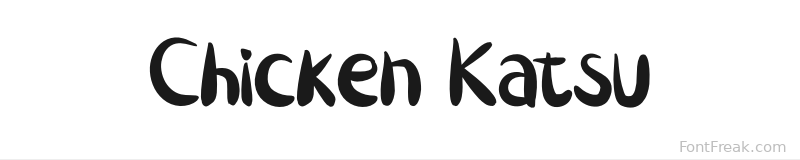
Chicken Katsu
The Chicken Katsu font by MaknaStudio is a delightful display typeface that captures the essence of fun and whimsy. This font, released in 2020 and available as freeware, features a playful handwritten style that is both inviting and approachable. Its rounded edges and slightly irregular strokes give it a casual, friendly vibe, making it perfect for a variety of creative projects.
Visually, Chicken Katsu boasts a medium stroke weight with minimal contrast, ensuring clarity and readability in various applications. The letterforms are generously spaced, allowing for easy legibility while maintaining a charming, organic flow. Decorative elements are subtly integrated, enhancing the font's unique personality without overwhelming the viewer.
This font is particularly well-suited for use in restaurant menus, especially those featuring casual dining or quirky themes. Its playful character makes it an excellent choice for food-related branding, such as logos for cafes and bistros. Additionally, Chicken Katsu can shine in crafting eye-catching movie posters or social media graphics aimed at a younger audience. Wedding invitations that embrace a relaxed, informal style can also benefit from the charm that this font brings.
Targeting graphic designers, small business owners, and content creators, Chicken Katsu is a versatile tool in any creative arsenal. Its distinctive style can help brands stand out in a crowded market, offering a memorable touch that resonates with audiences.
In conclusion, the Chicken Katsu font stands out due to its delightful blend of playfulness and readability. Whether you're designing a fun menu or a vibrant poster, this font is sure to add a unique flair to your project. Don't miss out on the Chicken Katsu font free download; it's an excellent addition to any designer's library.